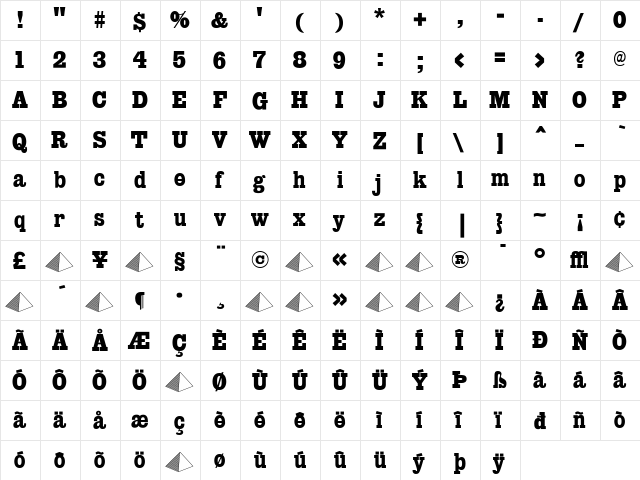
Giza Regular Font Preview
Giza Regular
Giza Regular Font Details
| Foundry | Copr. The Font Bureau, Inc |
| Copyright | Copr.1994, The Font Bureau, Inc. Designed by David Berlow. |
Design Context for Giza Typeface
Giza takes a measured approach to typography — its balanced proportions and neutral character make it a reliable workhorse for both digital and print work.